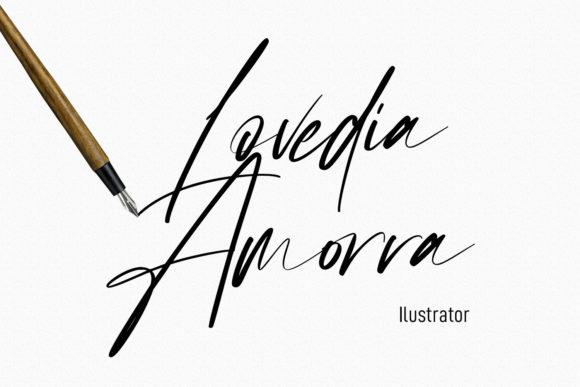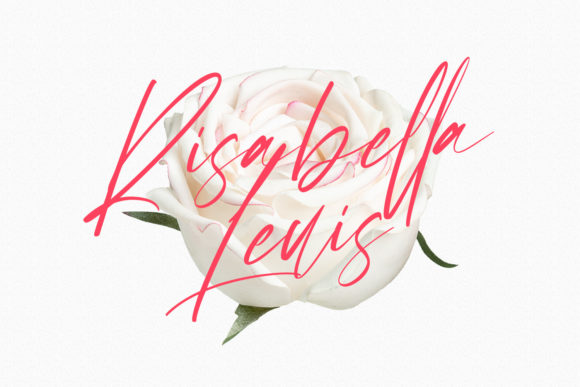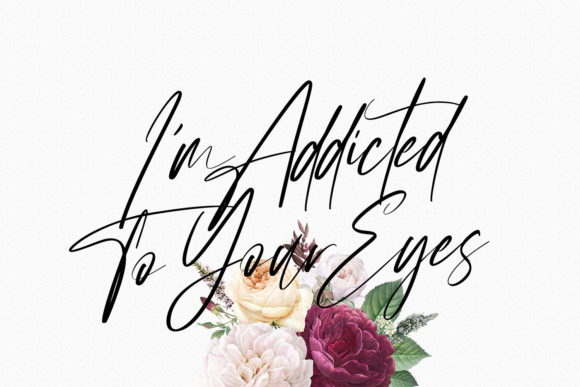
Introduction to Sellyamor Script Font
Have you ever found yourself scribbling down a beautiful handwritten note in a journal, only to wish you could recreate that same magic on your computer screen? The search for the perfect handwritten font can be a long and arduous one, but what if we told you we’ve found the solution to your creative conundrum?
Enter the enchanting Sellyamor Script Font, a versatile and high-quality design resource that’s perfect for any creative project. With its wide range of applications, from greeting cards to headlines, this free download is a must-have for any designer looking to add a touch of elegance to their work.
What sets Sellyamor Script Font apart is its PUA encoding, which makes it easy to access all of the glyphs and swashes, allowing for seamless integration into any design project. Whether you’re working on a project with a transparent background or need a high-quality font for your next design endeavor, Sellyamor Script Font is the perfect design resource to have in your arsenal.
Key Features of Sellyamor Script Font
- Unique, elegant script design perfect for creative projects requiring a high-quality, handwritten touch.
- Features a transparent background, allowing for easy customization and placement on various backgrounds.
- Designed with a high-resolution (300 DPI) for optimal print quality and digital display.
- Perfect for a variety of design applications, including wedding invitations, quotes, and creative typography.
Honest Review: Sellyamor Script Font
I recently had the chance to work with the Sellyamor Script Font in one of my creative projects, and I was excited to see how it would perform. As a designer, I’m always on the lookout for high-quality design resources that can elevate my work.
What works well with the Sellyamor Script Font is its elegant and sophisticated look. The font is perfect for projects that require a touch of romance and whimsy. I also appreciated that it’s available for free download, making it a fantastic design resource for designers on a budget. The font also comes with a transparent background, which makes it easy to customize and use in various design contexts.
Here are some of the key features that I liked about the Sellyamor Script Font:
- Elegant and sophisticated look
- Perfect for creative projects that require a touch of romance and whimsy
However, I did encounter some limitations with the font. It’s not suitable for projects that require a bold or dramatic look, and it may not be the best choice for designers who prefer a more modern or edgy aesthetic. ⚠️
Overall, I was impressed with the Sellyamor Script Font, and I would definitely recommend it to designers who are looking for a high-quality, elegant font for their creative projects. ✨
Introduction to Sellyamor Script Font
The Sellyamor Script Font is a high-quality design resource that adds a touch of elegance to any creative project. With its beautiful, cursive script, this font is perfect for adding a personal touch to your designs.
– Add the font to your presentations and documents, and use it to create eye-catching headings and titles.
Tips for Getting the Most Out of Sellyamor Script Font
Here are some tips to help you get the most out of the Sellyamor Script Font:
- Use the font in combination with other fonts to create a visually appealing design.
- Experiment with different font sizes, colors, and styles to create a unique look.
- Use the font in headings, titles, and body text to create a cohesive design.
Common Use Cases for Sellyamor Script Font
The Sellyamor Script Font is perfect for various design projects, including:
- Business cards and letterheads.
- Magazine and newspaper articles.
- Book covers and interior design.
Alternatives to Sellyamor Script Font
Pacifico Font is a beautiful script font perfect for creating a high-quality design for your creative project. It has a unique, elegant touch that is ideal for wedding invitations, quotes, and other design elements that require a sophisticated look.
Compared to Sellyamor Script Font, Pacifico Font has a more classic and refined feel. It’s ideal for designers who want a timeless look without the whimsical feel of Sellyamor.
What is the recommended size for using the Sellyamor Script Font in a design project?
The recommended size for using the Sellyamor Script Font depends on the specific design project. However, as a general guideline, we recommend using the font at a minimum size of 24 points for body text and 48 points for headings. This will ensure that the font is legible and easy to read, even when used on a transparent background.